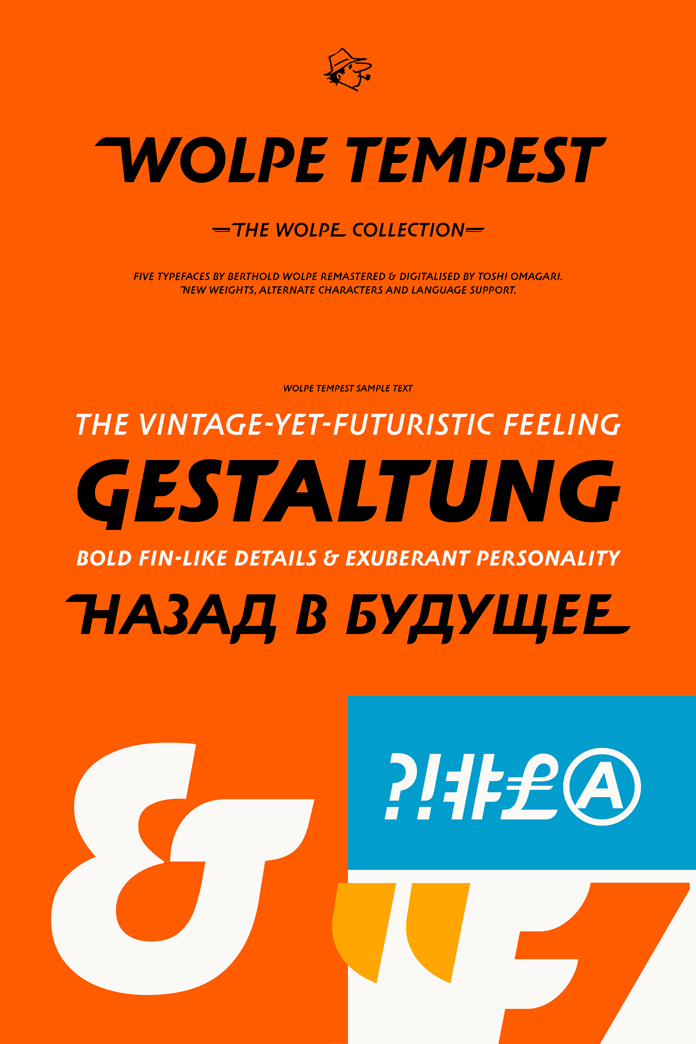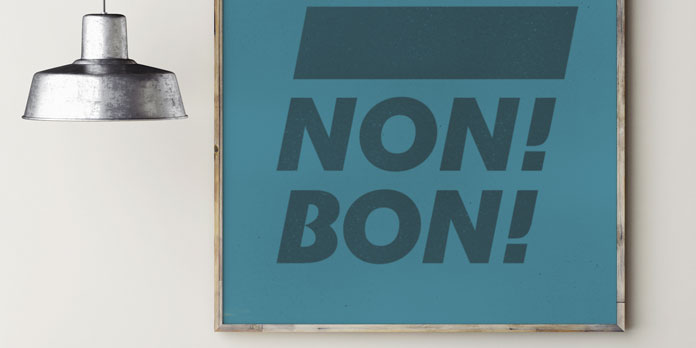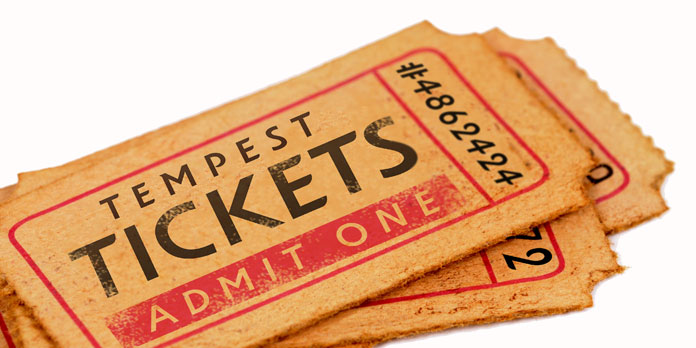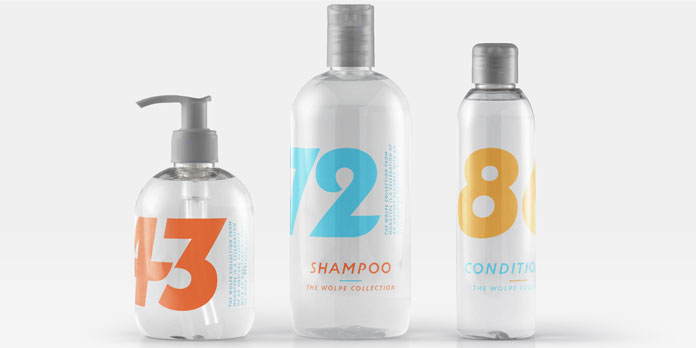
Wolpe Tempest – typefaces by Berthold Wolpe remastered and digitized by Toshi Omagari.
Recently published by foundry Monotype, Wolpe Tempest is based on original type designs by legendary German typographer Berthold Wolpe (1905 – 1989). In 2017, Monotype staff typeface designer Toshi Omagari had the opportunity to work on a remastered version of Berthold Wolpe’s Tempest typeface. The result is ‘Wolpe Tempest’, a small family consisting of three weights and several alternate characters. Whether online or offline projects, it is intended for any kind of display use. The new version also supports most Western European and many Eastern European languages. It is well suited for typographic applications such as branding, packaging, billboard and poster design, etc. For further information, just follow the link below.